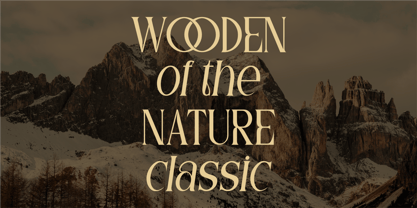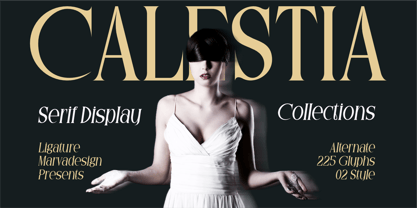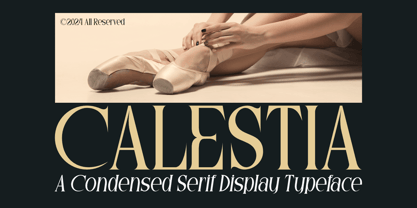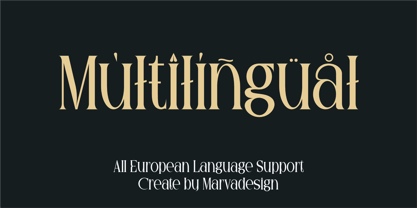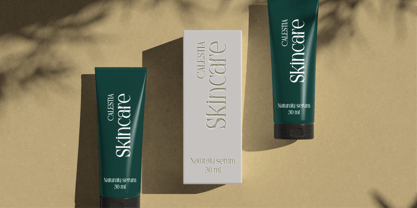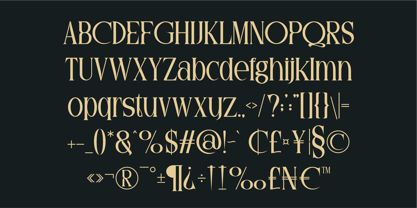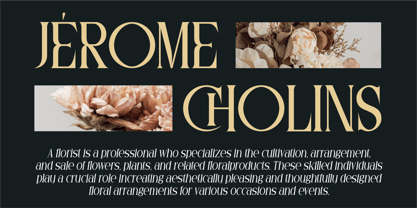
Calestia
by Marvadesign
The Calestia Font Family was designed by Febrie Setiawan and published by Marvadesign. Calestia contains 2 styles and family package options. More about this family
Introducing Calestia is a refined and sophisticated condensed serif display typeface. It embodies a blend of classic elegance and modern aesthetics, making it ideal for high-end branding, editorial design, and luxury-oriented visual compositions. The font features elongated letterforms with sharp, pronounced serifs that contribute to its distinct character and refined presence.
The high contrast between thick and thin strokes adds to its dramatic and sophisticated appeal, enhancing readability while maintaining a strong visual impact. Additionally, the font incorporates unique ligatures and alternates, allowing for greater typographic versatility and artistic expression. The italicized subtext employs a sleek, curvaceous script that complements the primary serif style, introducing a dynamic and fluid contrast.
With a total of 225 glyphs and multiple stylistic variations, Calestia offers extensive typographic flexibility. Its application is well-suited for fashion editorials, luxury branding, magazine headlines, and elegant promotional materials. The font’s overall composition exudes a sense of timeless refinement and artistic finesse, making it a compelling choice for designers seeking to convey sophistication and exclusivity.
Designers: Febrie Setiawan
Foundry: Marvadesign